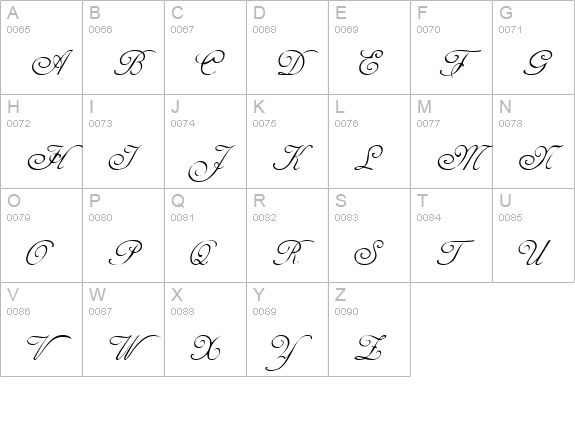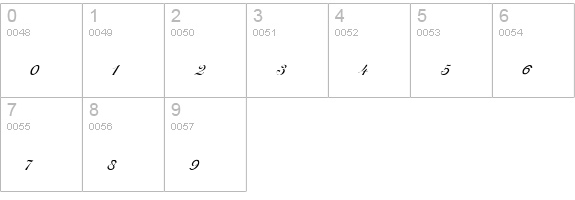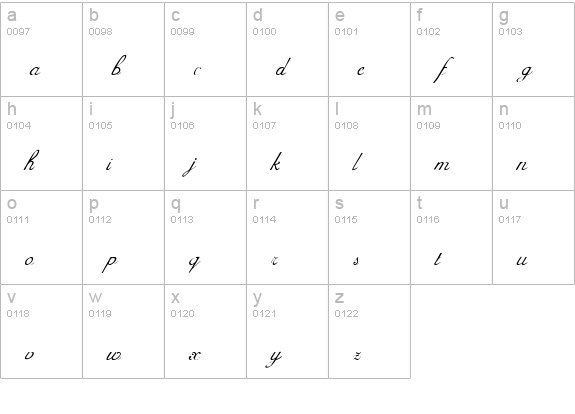
AdineKirnberg Regular Font Details
AdineKirnberg Regular is the standard, neutral variant in the AdineKirnberg typeface family \xE2\x80\x94 well suited to general body text, paragraphs, and standard typographic work.
AdineKirnberg Regular font is a stunning and elegant typeface that exudes sophistication and charm. With its intricate and decorative letterforms, this font is perfect for adding a touch of luxury to any design project. The flowing curves and flourishes of AdineKirnberg Regular make it stand out and capture attention with its unique style. What's even better is that AdineKirnberg Regular is available for free download at FontsMarket.com. This means you can easily access this beautiful font and use it in your projects without any cost. Whether you're designing invitations, posters, or branding materials, AdineKirnberg Regular will add a touch of class and elegance to your work. Don't miss out on this opportunity to enhance your designs with this exquisite font - download AdineKirnberg Regular for free today!